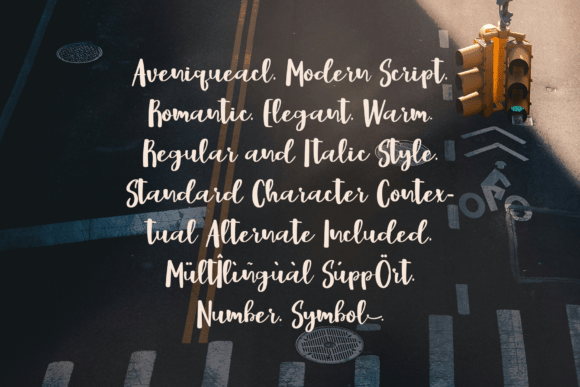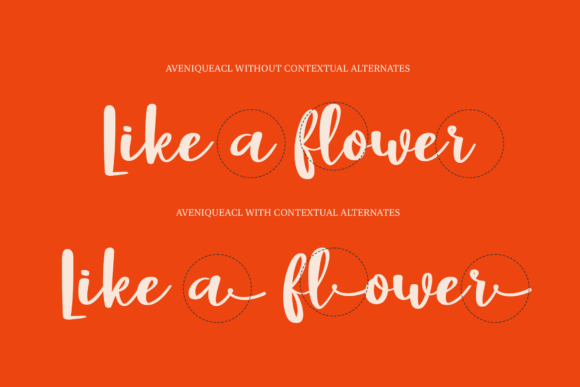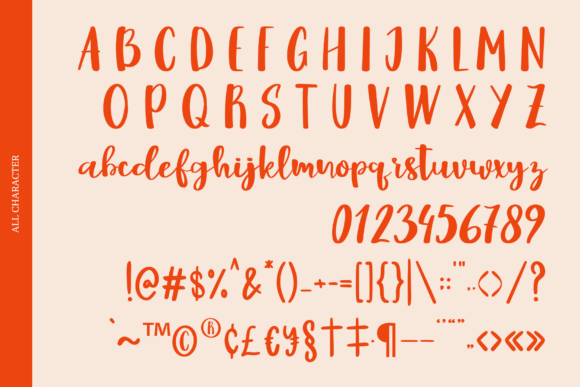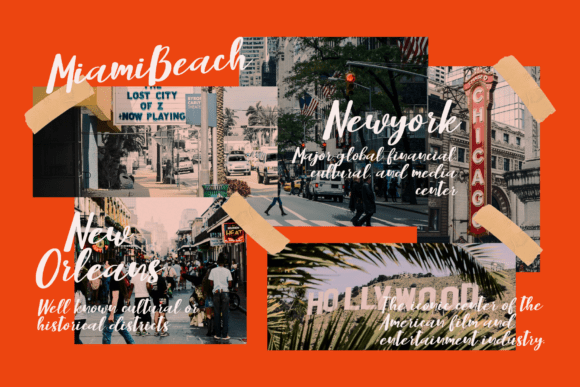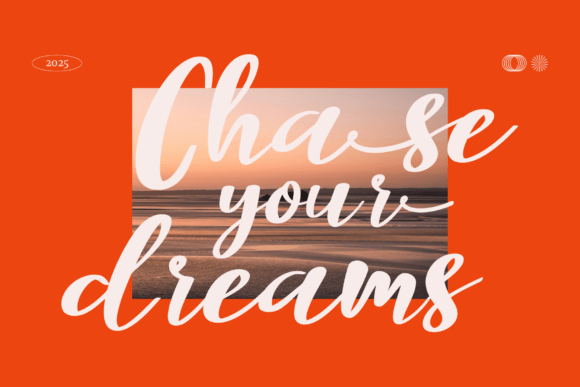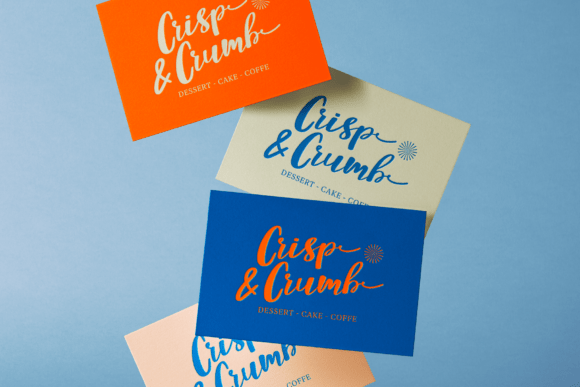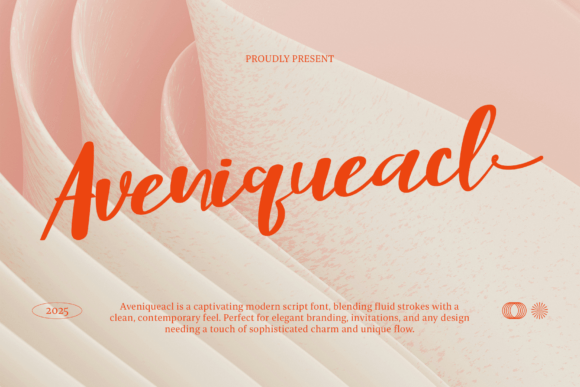
CFAveniqueacl Regular Font: Elevate Your Designs with Modern Script Elegance
In the world of typography, a font can make all the difference in transforming a design from ordinary to extraordinary. Introducing CFAveniqueacl Regular, a modern script typeface that embodies the perfect blend of handcrafted elegance and contemporary design versatility. This stunning font is designed to convey sophistication, making it an ideal choice for designers and crafters seeking to add a touch of refinement to their projects.
The Art of Elegance: Crafted with Precision
CFAveniqueacl Regular boasts exquisite curves, carefully drawn to exude a sense of luxury and poise. The letterforms feature balanced proportions, gentle swashes, and smooth transitions, creating a harmonious flow that ensures a seamless reading experience. This modern script typeface is perfect for applications where elegance and personality are paramount, such as branding projects, wedding stationery, social media graphics, product packaging, or editorial layouts.
Key Features of CFAveniqueacl Regular
- Handcrafted elegance: Every curve and line has been meticulously crafted to convey sophistication and refinement.
- Flowing connections: The font’s flowing connections ensure a natural and seamless reading experience.
- Balanced proportions: The letterforms feature balanced proportions, creating a harmonious and elegant appearance.
- Gentle swashes: The font’s gentle swashes add a touch of elegance and sophistication.
- Smooth transitions: The smooth transitions between letters create a refined and polished appearance.
CFAveniqueacl Regular offers a world of creative possibilities, making it an excellent choice for various design projects. Its versatility allows it to shine in formal contexts while still retaining a warm and approachable character. Use it to:
- Create stunning branding projects, such as logos, business cards, and letterheads.
- Design beautiful wedding stationery, including invitations, menus, and place cards.
- Craft engaging social media graphics that capture attention and convey your message.
- Develop eye-catching product packaging that stands out on store shelves.
- Elevate your editorial layouts, such as magazines, newspapers, and blogs.
Timeless Beauty for Digital and Print Design
CFAveniqueacl Regular is designed to excel in both digital and print design. Its timeless beauty ensures that your designs remain relevant and stylish, regardless of the medium. Whether you’re creating a luxury logo, a heartfelt greeting card, or a striking visual statement, this modern script typeface is the perfect choice.
Why Choose CFAveniqueacl Regular?
With CFAveniqueacl Regular, you can:
- Add a touch of sophistication to your designs.
- Convey elegance and refinement in your typography.
- Enhance your designs with a unique and memorable font.
- Enjoy a seamless reading experience with flowing connections.
In conclusion, CFAveniqueacl Regular is a stunning modern script typeface that offers a perfect blend of elegance, sophistication, and versatility. Its handcrafted curves, balanced proportions, and smooth transitions make it an ideal choice for designers and crafters seeking to elevate their projects. With its endless design possibilities and timeless beauty, CFAveniqueacl Regular is sure to become a valuable addition to your typography collection.